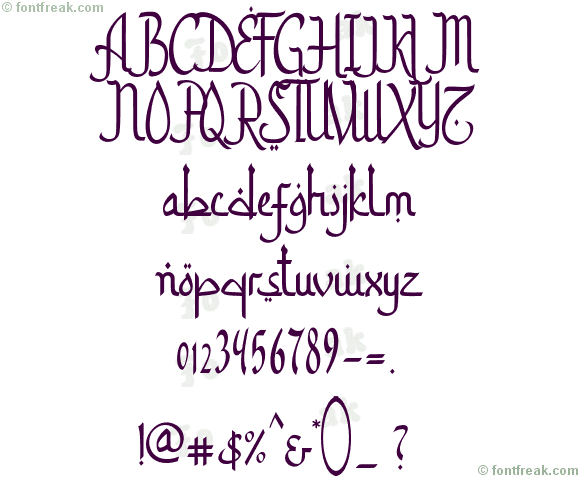
OurRamadhan-Regular
About OurRamadhan-Regular
OurRamadhan-Regular is a captivating script font designed by 50Fox Studio, embodying a unique blend of elegance and cultural significance. This font falls within the category of decorative scripts, characterized by its flowing, cursive style that adds a personal touch to any design. The strokes of OurRamadhan-Regular are gracefully curved, showcasing a moderate contrast in weight that enhances its visual appeal while maintaining legibility. The spacing is thoughtfully arranged, allowing for smooth readability even in longer texts. Decorative elements, such as flourishes and unique ligatures, elevate the font, making it a perfect choice for projects that seek to convey a sense of tradition and celebration.
This font is an excellent fit for a variety of design applications. It shines in wedding invitations, where its elegant curves can set a romantic tone. It is equally suitable for holiday greeting cards, capturing the spirit of community and festivity. Additionally, restaurant menus can benefit from its distinct charm, helping to create an inviting atmosphere. Content creators looking to enhance their social media graphics will find OurRamadhan-Regular particularly appealing, as it stands out in a crowded digital landscape. Graphic designers and small business owners will appreciate its versatility, making it a valuable addition to any creative toolkit.
What sets OurRamadhan-Regular apart is its ability to blend artistry with practicality. This font not only enhances the aesthetic quality of your projects but also resonates with audiences who appreciate cultural artistry. With its free download available, it opens doors for creatives seeking to elevate their work without financial constraints. Embrace the elegance and charm of OurRamadhan-Regular for your next design project and experience the unique flair it brings to your creations.